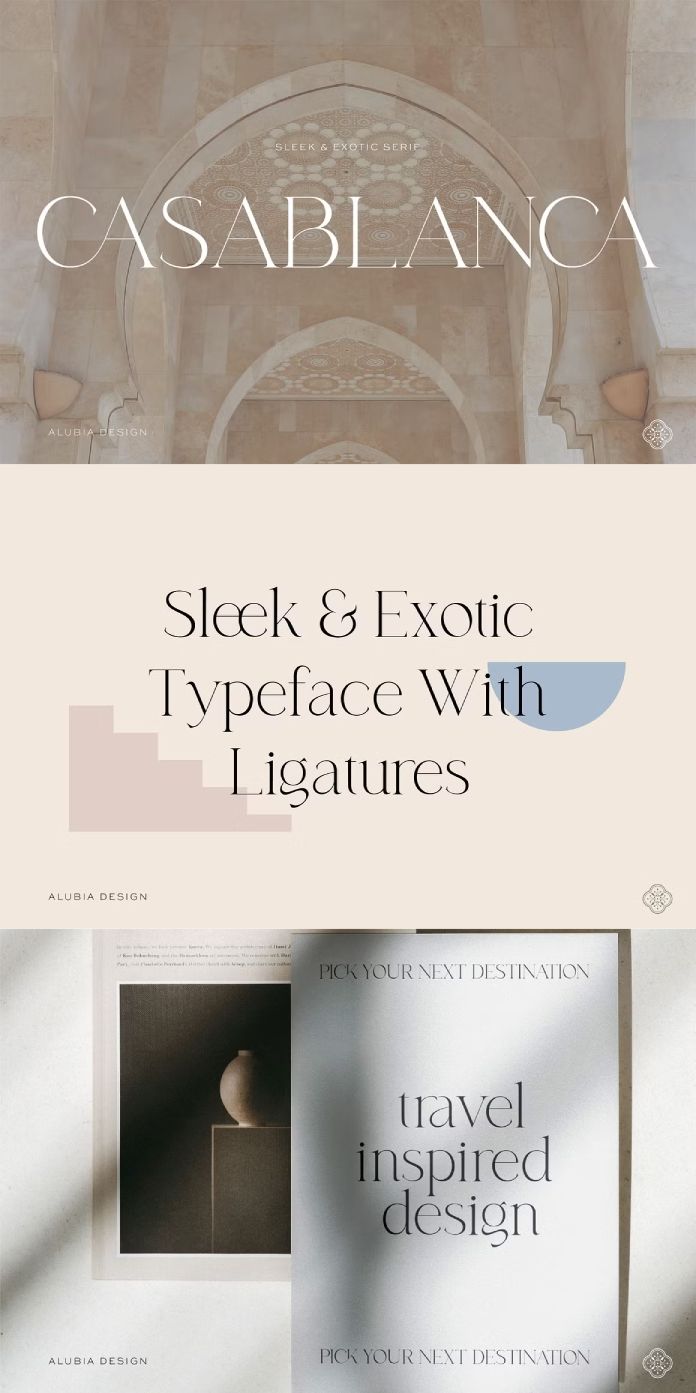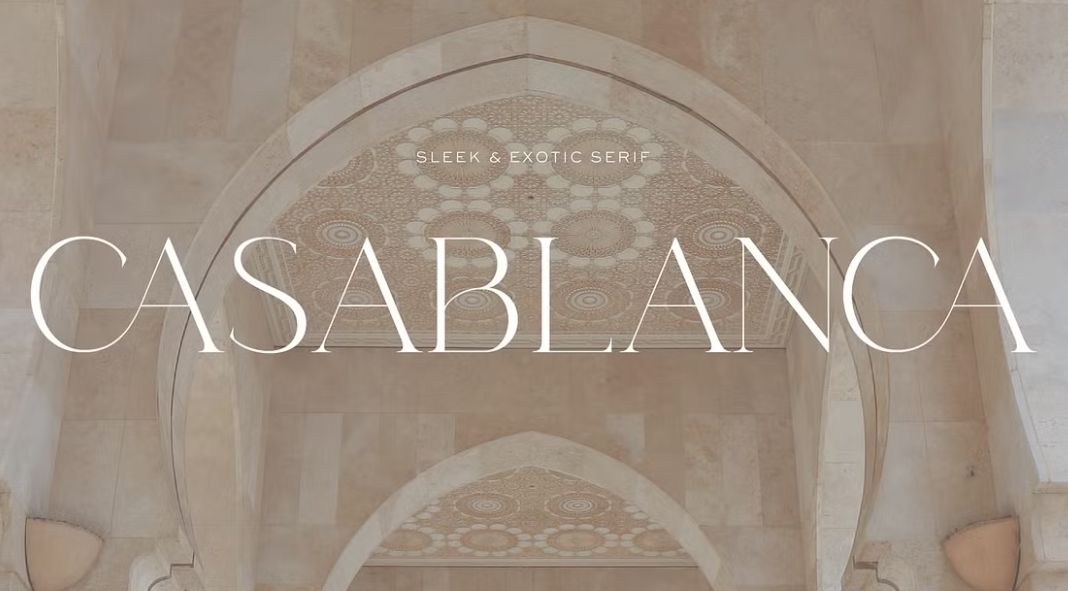
Transport Your Designs to Morocco with the Enchanting Casablanca Typeface
Close your eyes and imagine a bustling marketplace in Marrakech, vibrant spices piled high, and rich textiles catching the desert sun. Now, open them and behold the Casablanca typeface, a font that captures the essence of Morocco and injects your designs with a touch of exotic elegance.
Created by the talented Alubia Design, Casablanca is more than just a pretty face (though let’s be honest, it’s downright gorgeous). This typeface is a gateway to a world of captivating design possibilities. Its sleek serifs evoke the clean lines of Moorish architecture, while the beautifully crafted ligatures hint at the hidden secrets whispered through winding alleyways.
Here’s why Casablanca should be your new design muse:
- Effortless Sophistication: Casablanca exudes a timeless quality that elevates any project. Imagine wedding invitations that shimmer with romance, or branding that conveys heritage and luxury.
- A Touch of the Unexpected: The subtle curves and exotic flair add a touch of the unexpected to your designs, making them stand out from the crowd. Think magazine covers that beckon to be explored or posters that spark curiosity.
- Versatility at its Finest: Don’t be fooled by Casablanca’s air of mystery. This typeface is surprisingly versatile, working wonders for everything from bold headlines to delicate body copy.
- A Gateway to Morocco: Casablanca isn’t just a typeface, it’s a portal to a captivating world. Let it inspire you to explore Moroccan patterns, rich colors, and captivating textures in your designs.